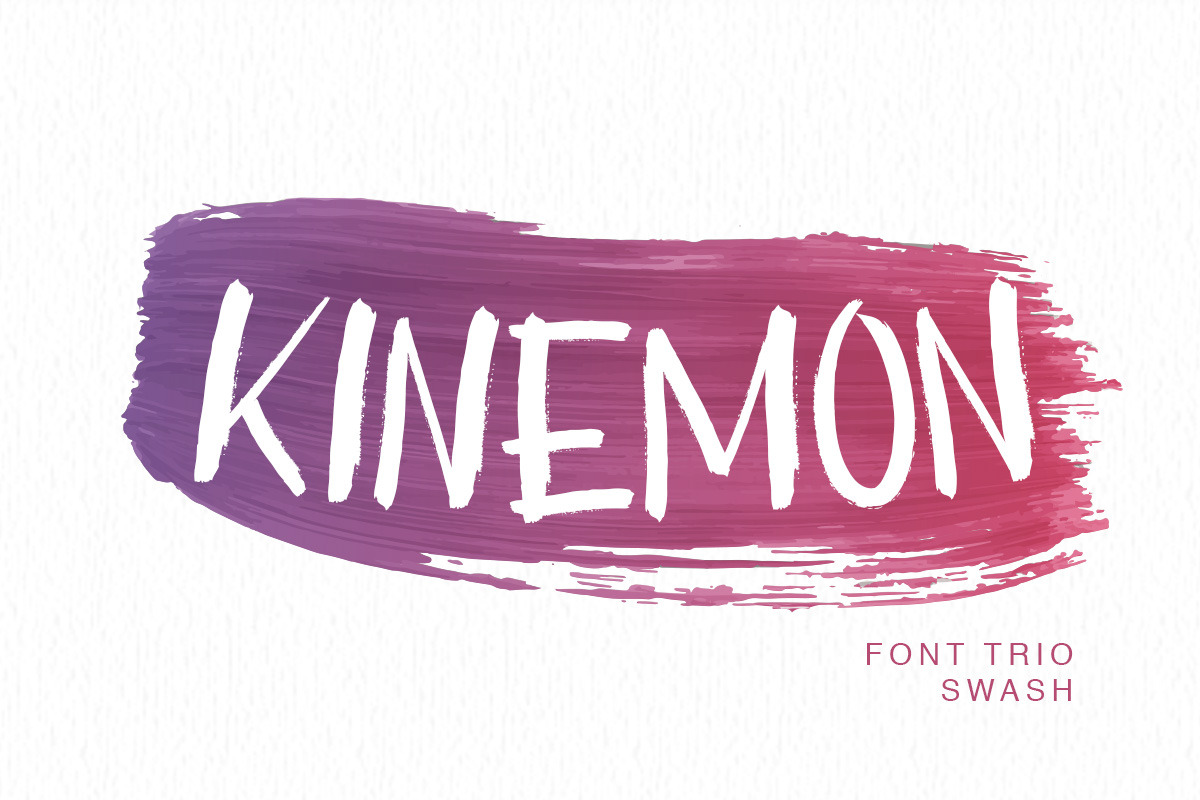
Introducing Kinemon - a new beautiful handcrafted brush font & swash as a bonus with a nice calligraphy-style, comes with upper and lowercase characters within the 3 type fonts ( brush, pencil and pen style). So beautiful on invitation like greeting cards, branding materials, business cards, quotes, posters, and more!